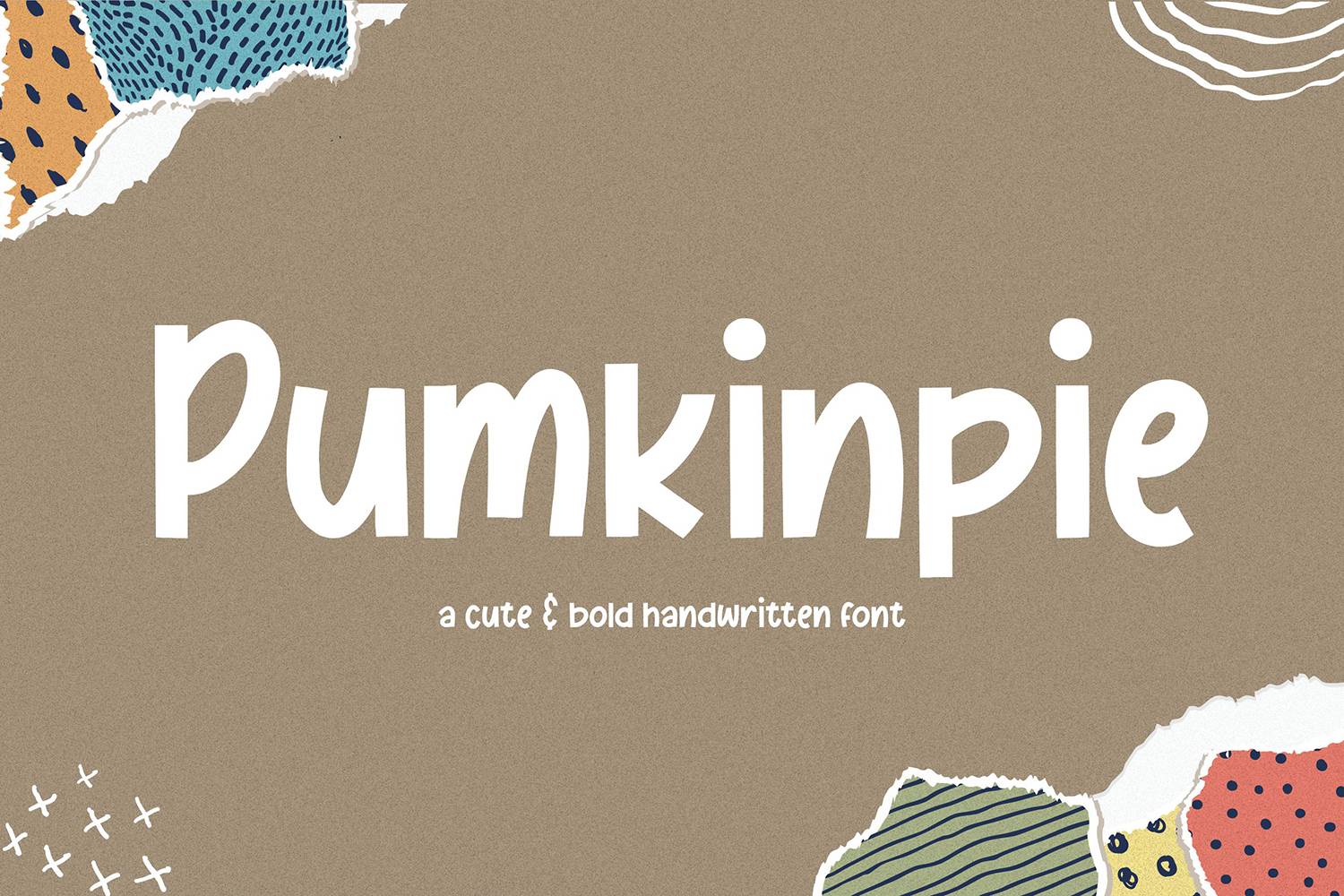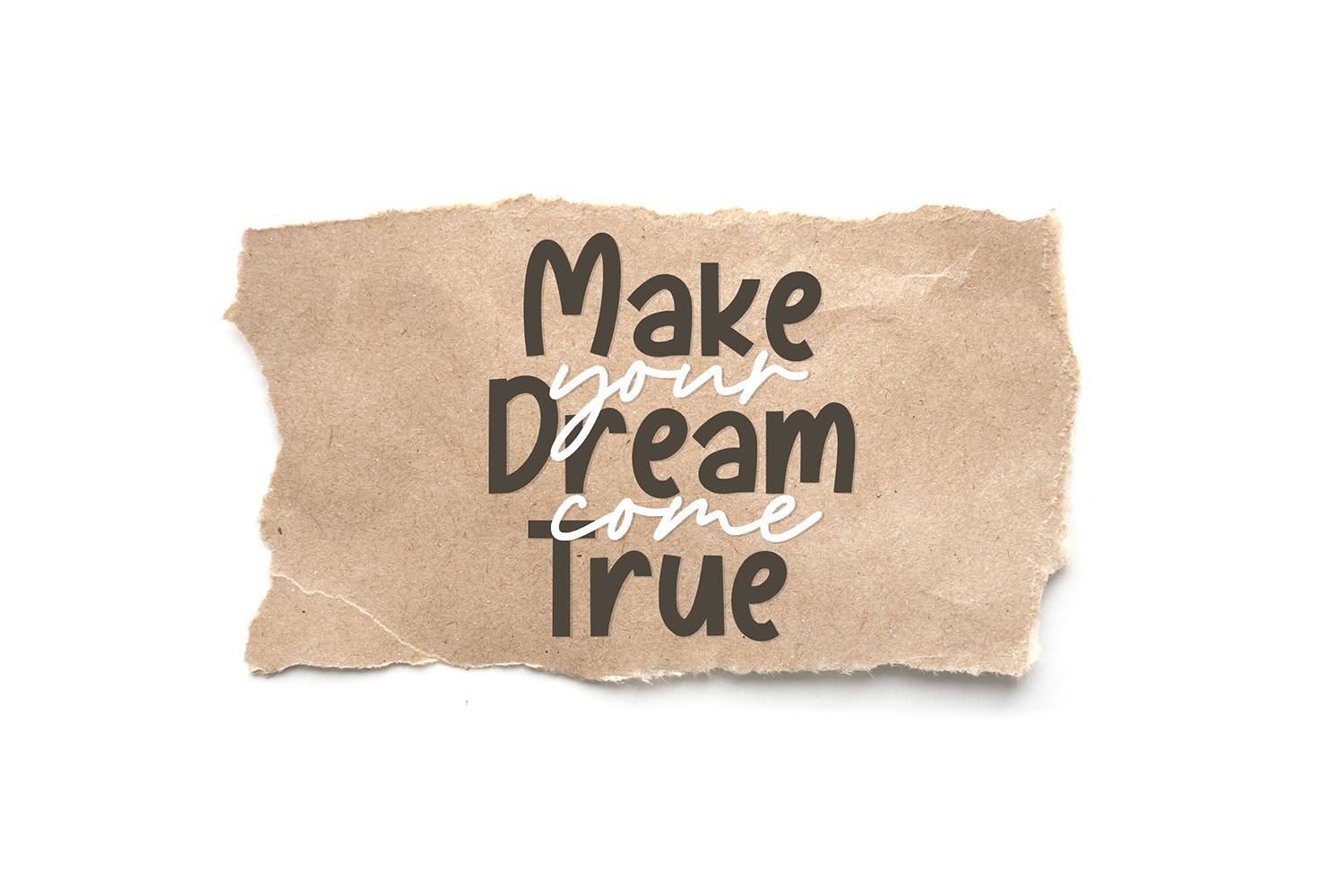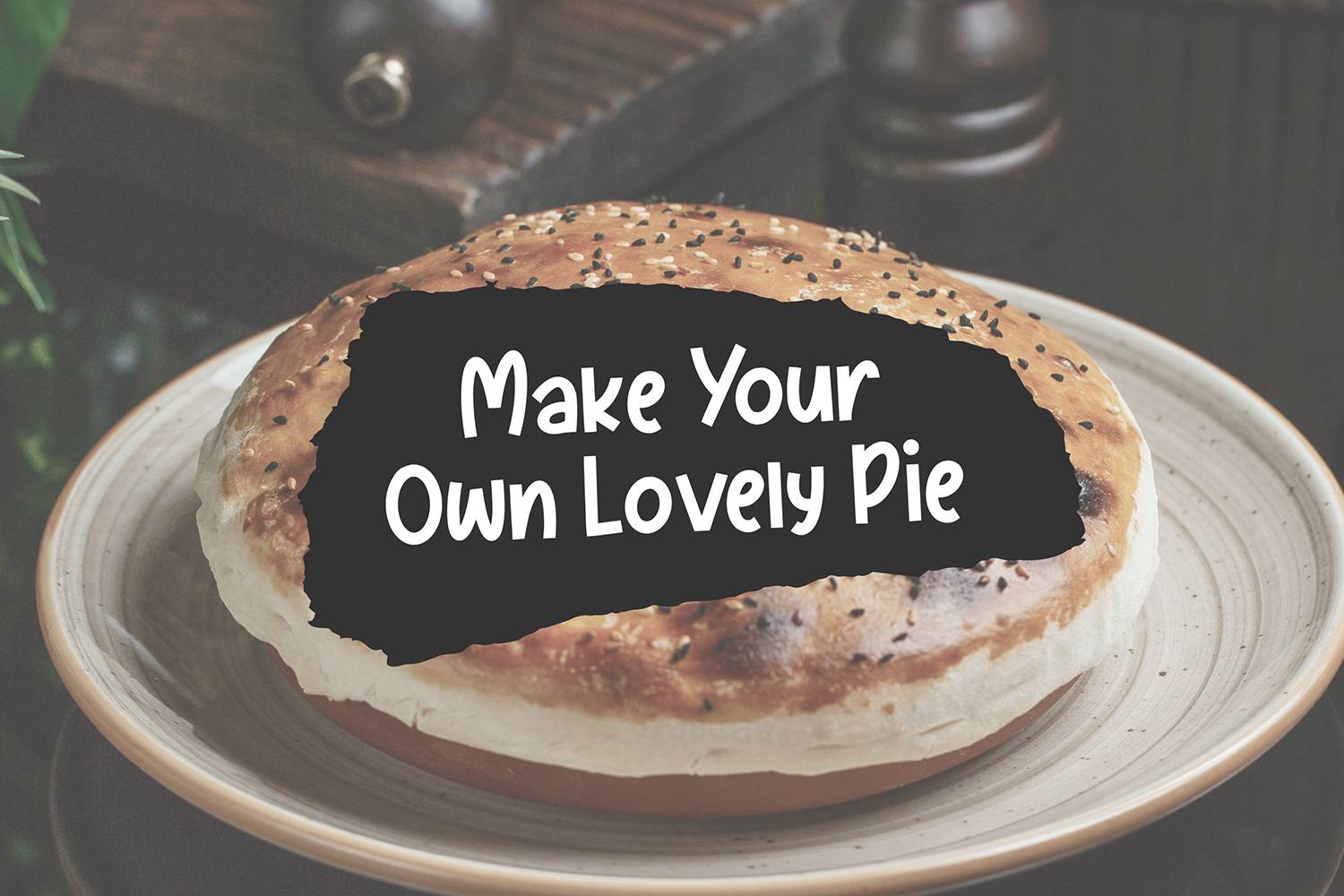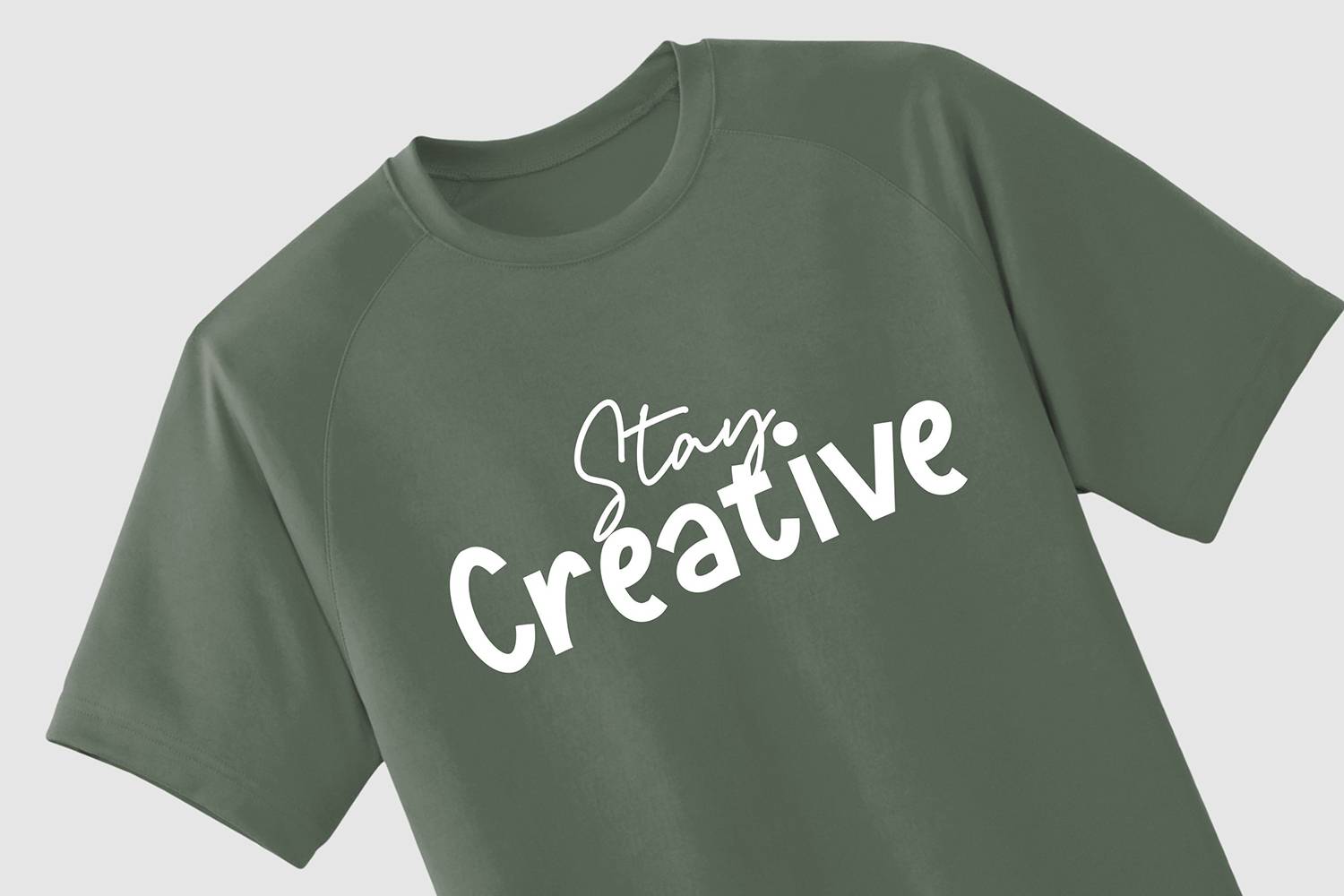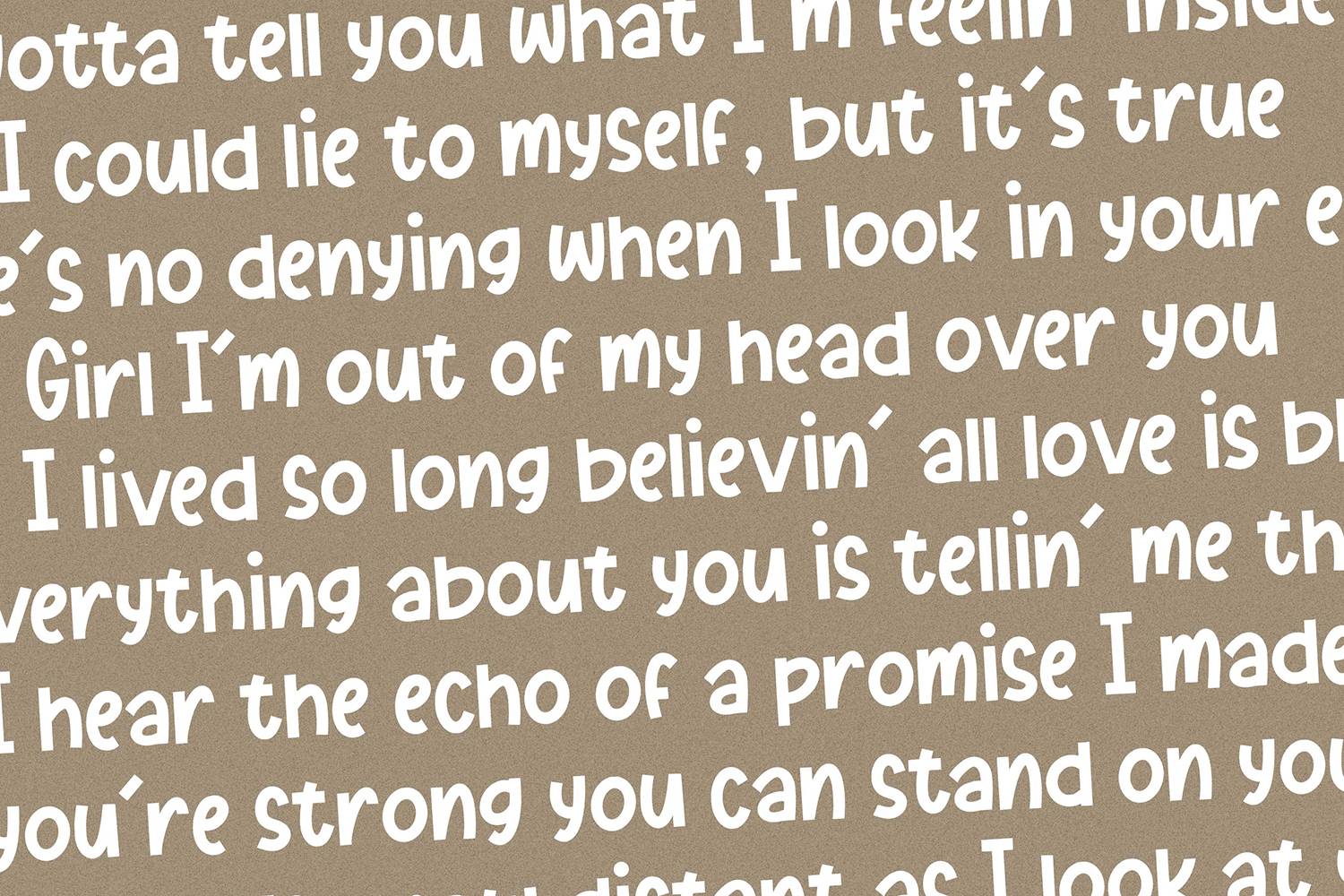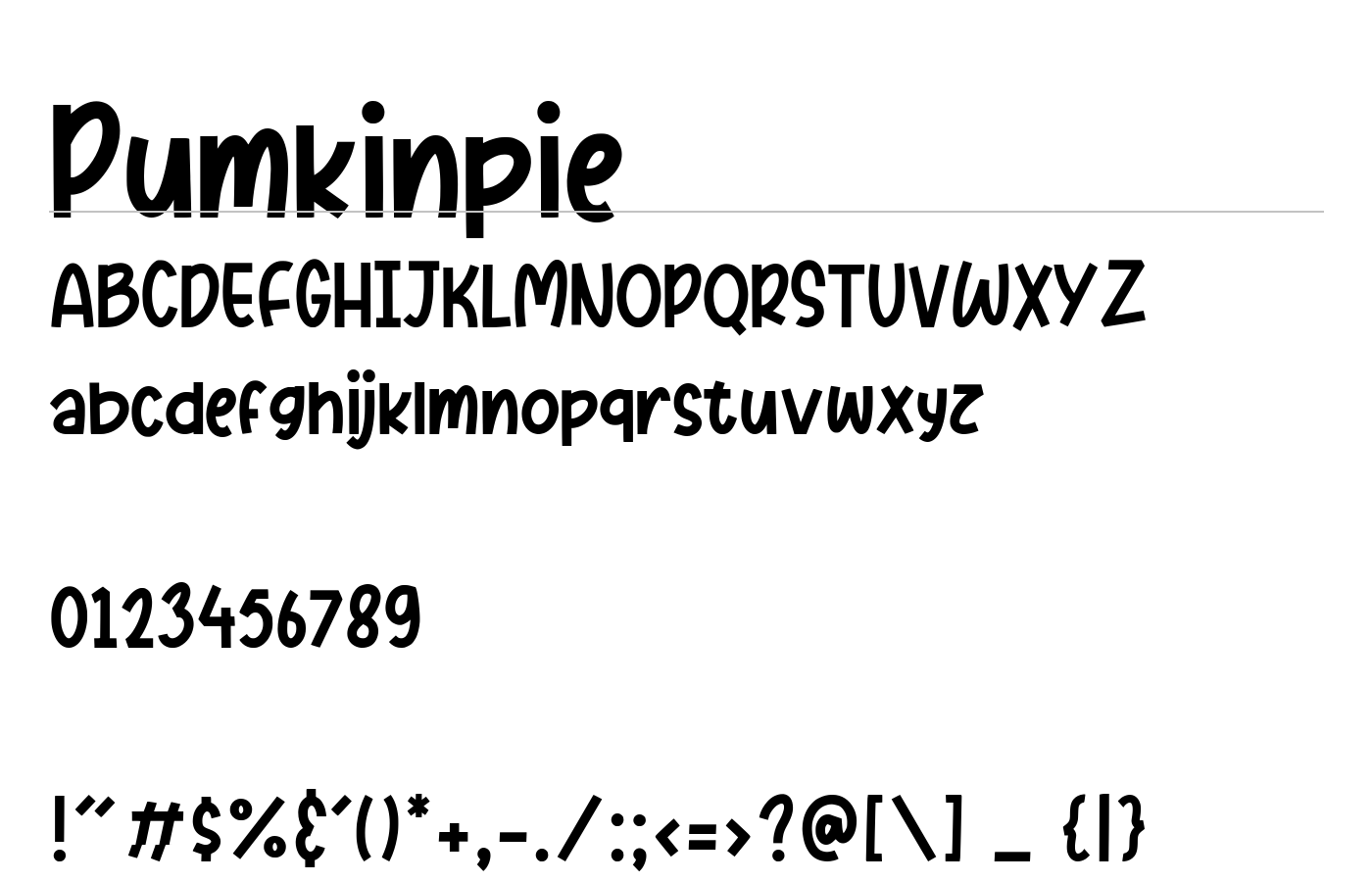
Pumkinpie is a playful and quirky sans serif font with a hand-drawn feel, featuring irregular shapes and a lively rhythm. Its bold weight and slightly condensed, tall letterforms give it an energetic and friendly personality, making it ideal for children’s designs, casual branding, and fun headlines. This font works well where a warm, approachable, and informal look is desired, adding charm and character without sacrificing readability.
Pumkinpie Font
About Pumkinpie Font